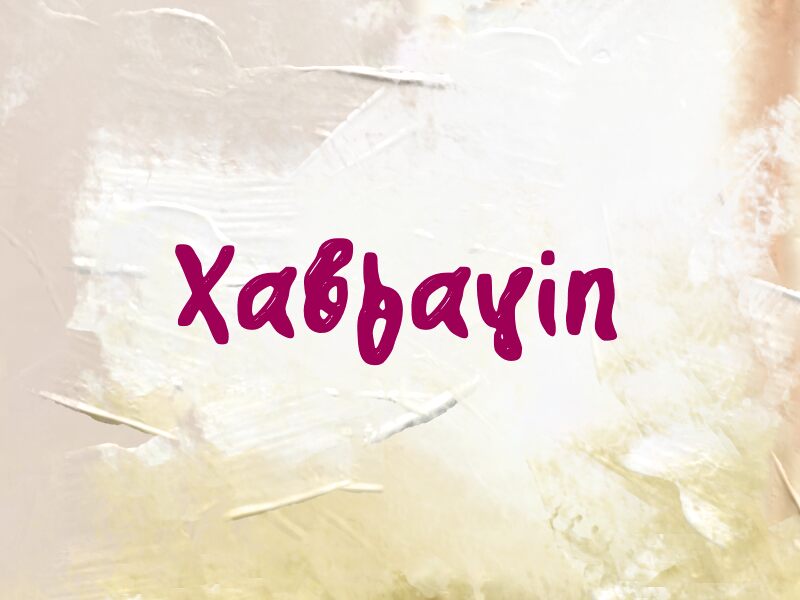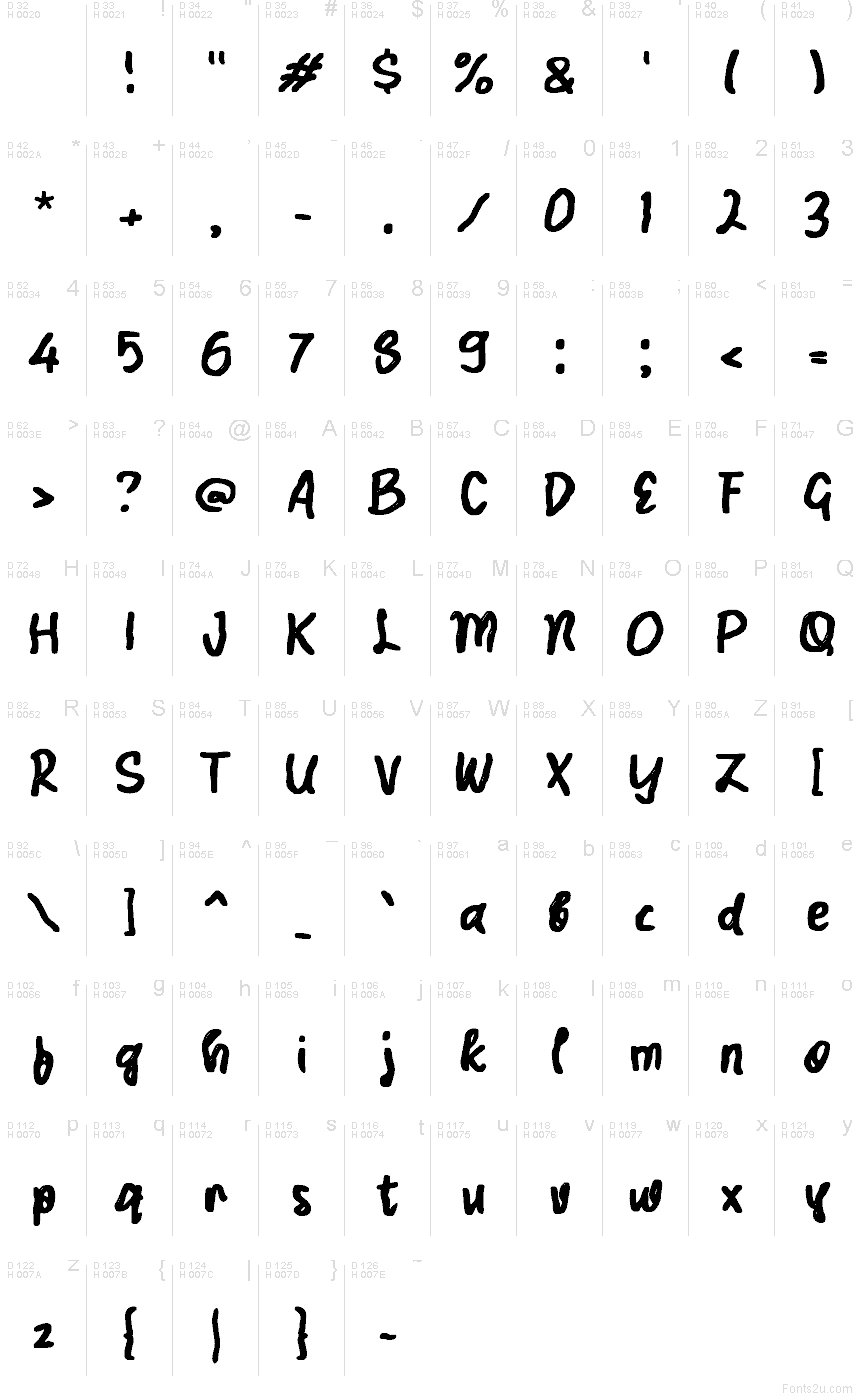
Xabfayin
Xabfayin font by wepfont.com is a free brush font that feels like thick, inky strokes dragged quickly across paper. Its rounded, slightly messy curves and bold, blobby texture give it a friendly, homemade energy—like hand-painted signage at a neighborhood market or doodles in a sketchbook. The letters connect loosely, keeping just enough structure so your message stays clear while still looking spontaneous and human.
Using Xabfayin, this free font shines on kids’ posters, food packaging, craft labels, YouTube thumbnails, event flyers, and playful branding where you want warmth over polish. It holds up well at larger sizes where its brushy edges can really show, and it pairs nicely with a simple geometric sans for body text to keep the layout grounded.